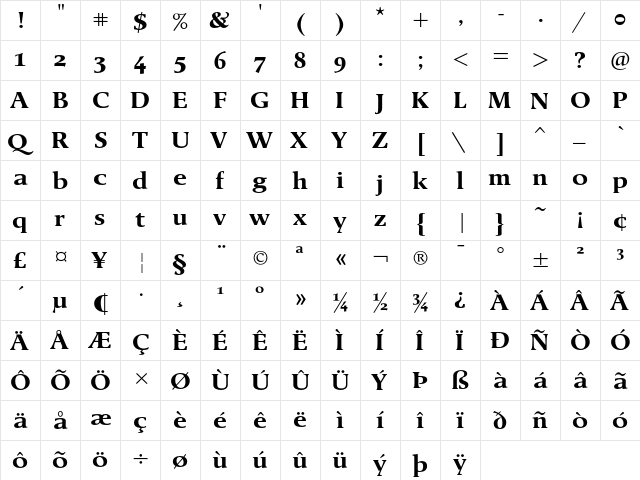
Berndal LT Std Regular Bold
| Foundry | Linotype GmbH |
| Designer | Bo Berndal |
Design Context for Berndal LT Std Regular Typeface
Berndal LT Std Regular takes a measured approach to typography — its balanced proportions and neutral character make it a reliable workhorse for both digital and print work. The heavy weight commands attention and anchors typographic hierarchies.